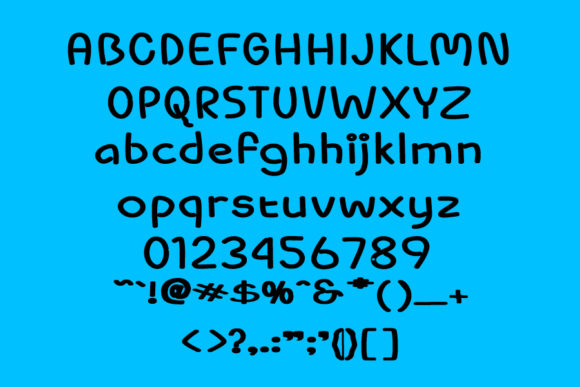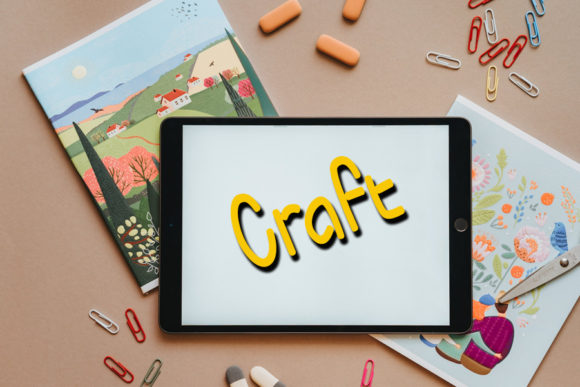
Cold February Font: Elevate Your Designs with a Simple yet Fun Handwritten Style
Are you tired of using the same old fonts in your designs? Look no further than Cold February, a simple and fun handwritten font that’s sure to make your creative ideas stand out. In this article, we’ll dive into the world of Cold February Font, exploring its features, benefits, and uses, as well as provide tips on how to incorporate it into your designs.
What is Cold February Font?
Cold February Font is a beautiful, handwritten font that’s perfect for adding a personal touch to your designs. Its simplicity and playfulness make it an excellent choice for a wide range of projects, from DIY crafts to digital designs. With its unique and charming style, Cold February Font is sure to capture the attention of your audience and leave a lasting impression.
Features of Cold February Font
- Simple and Fun: Cold February Font boasts a simple yet fun design that’s perfect for creating eye-catching headlines, titles, and text.
- Handwritten Style: The font’s handwritten style gives it a personal and approachable feel, making it ideal for designs that require a touch of warmth and personality.
- Versatile: Cold February Font is versatile and can be used in a variety of projects, including digital designs, print materials, and DIY crafts.
- Easy to Read: The font’s clear and legible design ensures that your text is easy to read, making it perfect for body text and captions.
Benefits of Using Cold February Font
So, why should you choose Cold February Font for your designs? Here are just a few benefits of using this amazing font:
- Adds Personality: Cold February Font adds a personal touch to your designs, making them more relatable and engaging.
- Stand Out: The font’s unique style ensures that your designs stand out from the crowd, grabbing the attention of your audience.
- Time-Saving: With Cold February Font, you can create stunning designs in no time, saving you time and effort.
Uses of Cold February Font
Cold February Font is perfect for a wide range of projects, including:
- Digital Designs: Use Cold February Font in your digital designs, such as social media graphics, blog posts, and website headers.
- Print Materials: Add the font to your print materials, including brochures, flyers, and posters.
- DIY Crafts: Cold February Font is perfect for DIY crafts, such as handmade cards, scrapbooking, and journaling.
- Signage: Use the font in your signage, including store signs, event signs, and directional signs.
Tips for Using Cold February Font
Here are some tips for using Cold February Font in your designs:
- Pair with Other Fonts: Pair Cold February Font with other fonts to create a unique and visually appealing design.
- Use in Headlines: Use Cold February Font in headlines and titles to add emphasis and draw attention.
- Keep it Simple: Keep your design simple and clean to ensure that the font is the focal point.
In conclusion, Cold February Font is a simple and fun handwritten font that’s perfect for adding a personal touch to your designs. With its unique style, versatility, and ease of use, it’s an excellent choice for designers and crafters of all levels. Whether you’re working on digital designs, print materials, or DIY crafts, Cold February Font is sure to make your creative ideas stand out. So, why wait? Download Cold February Font today and take your designs to the next level!